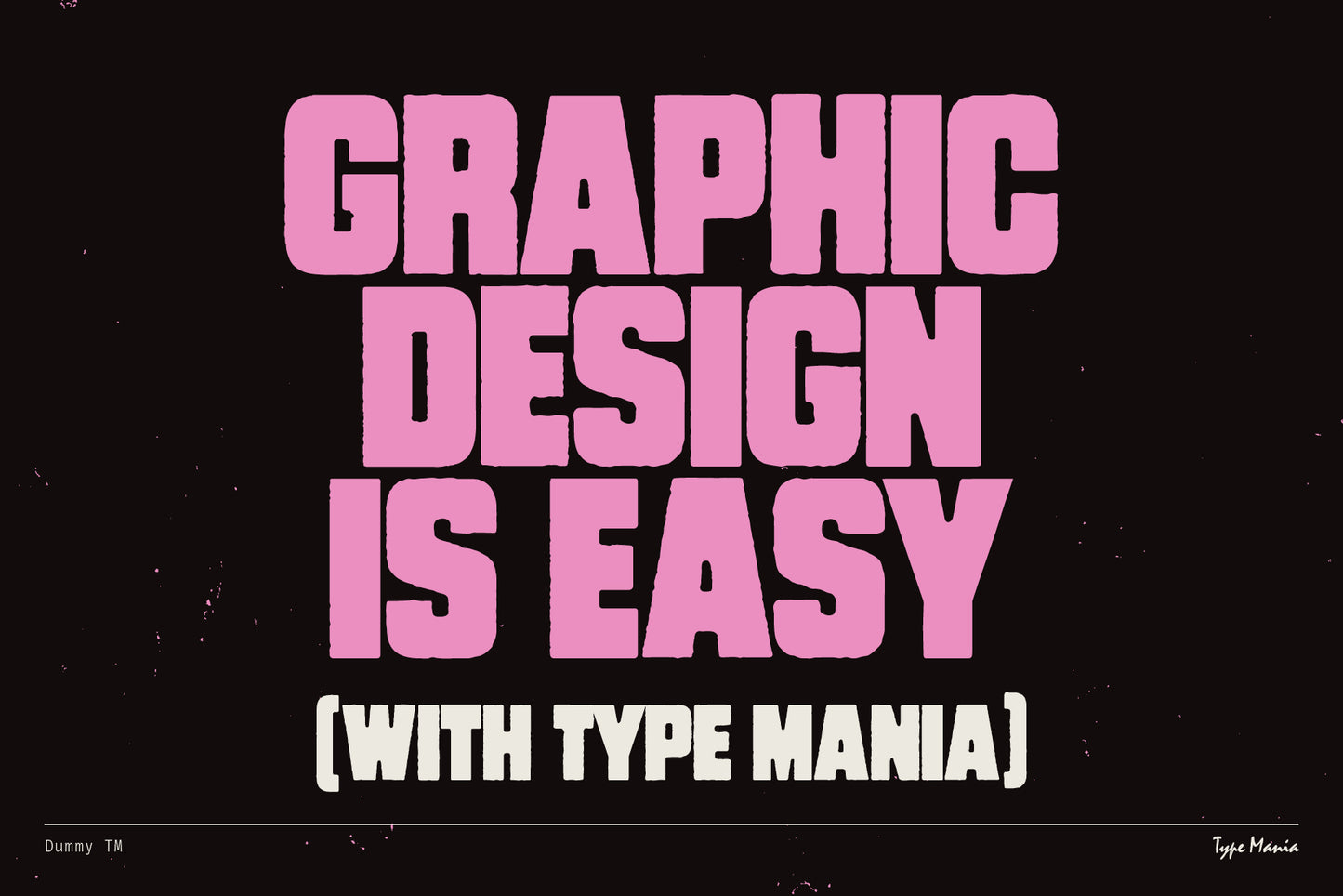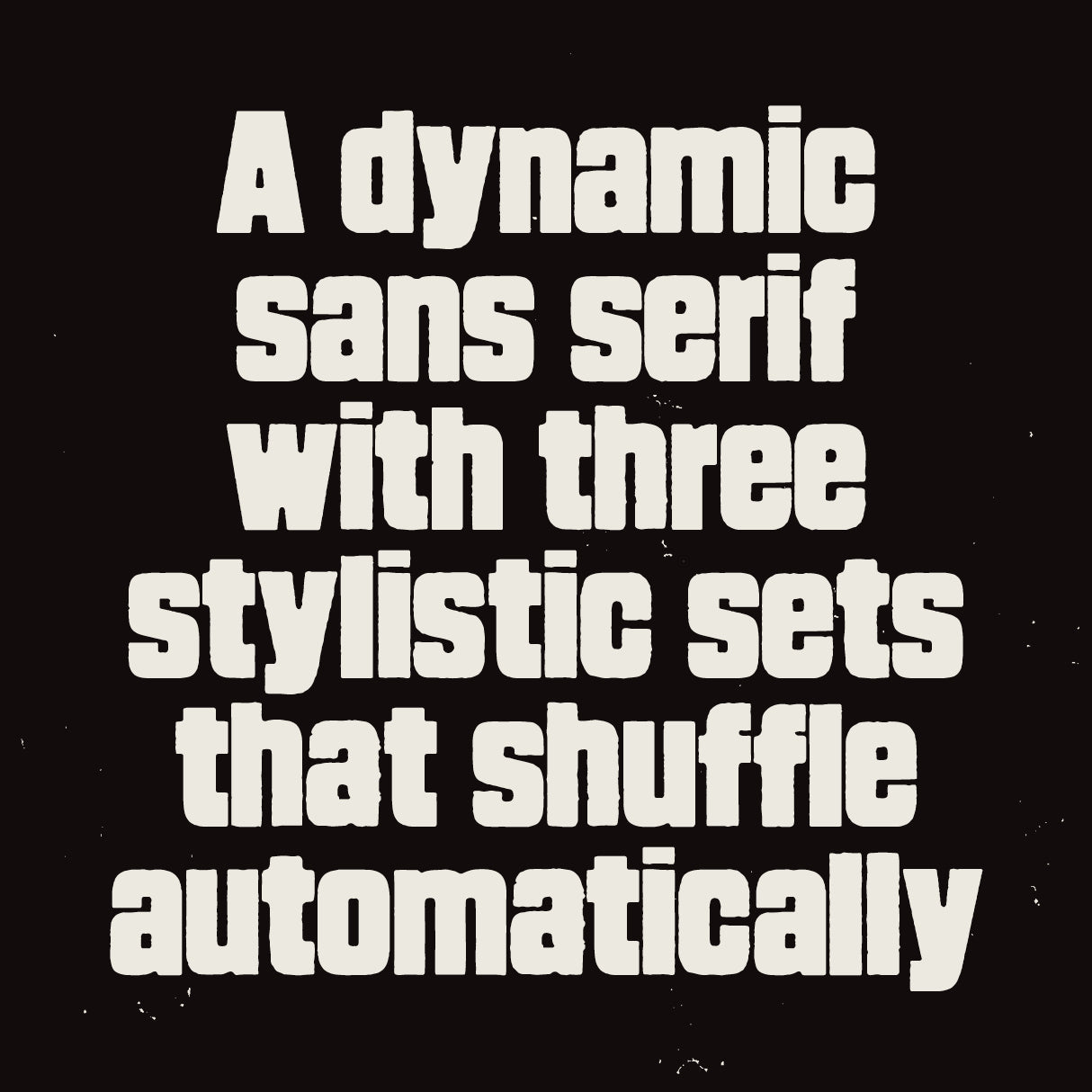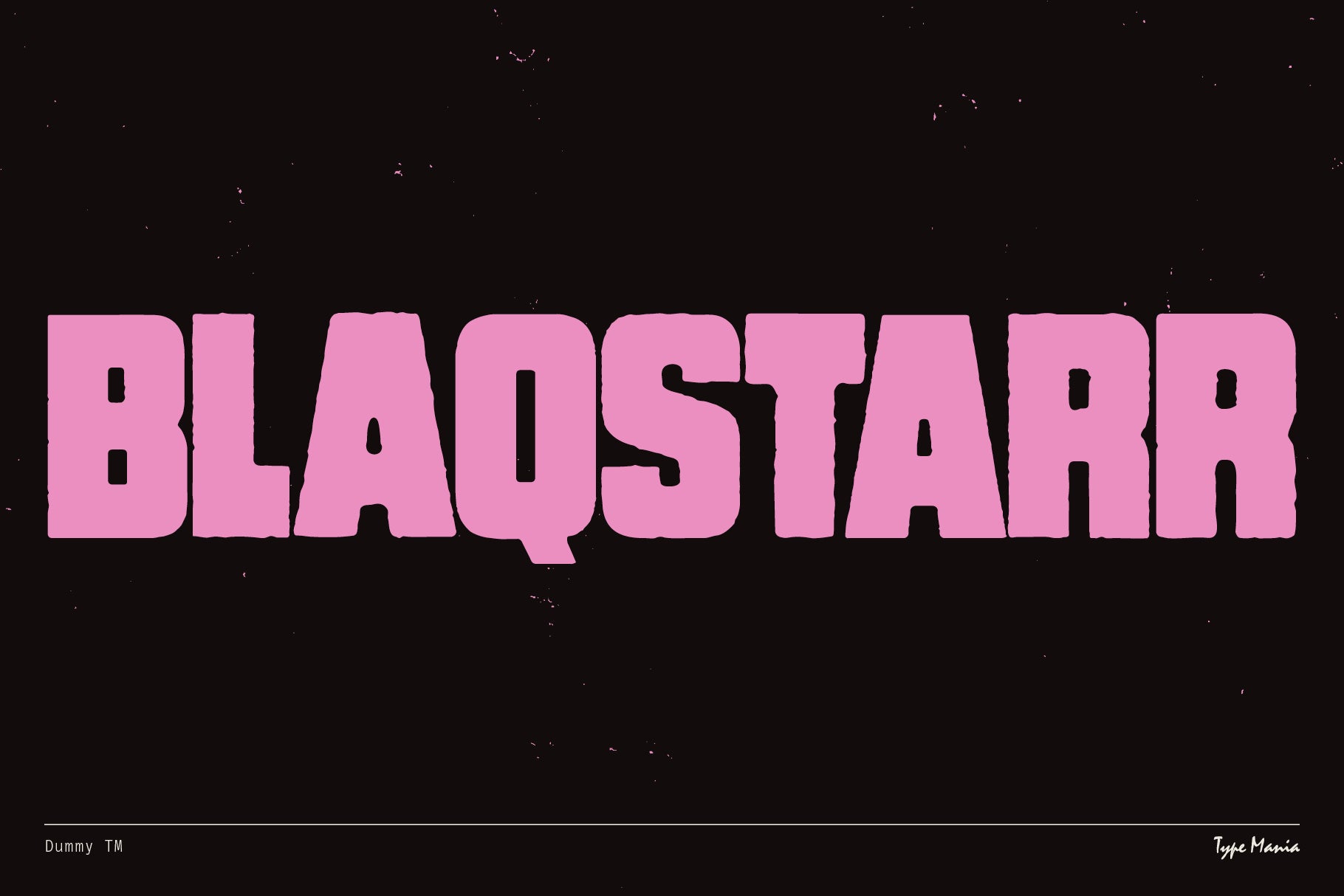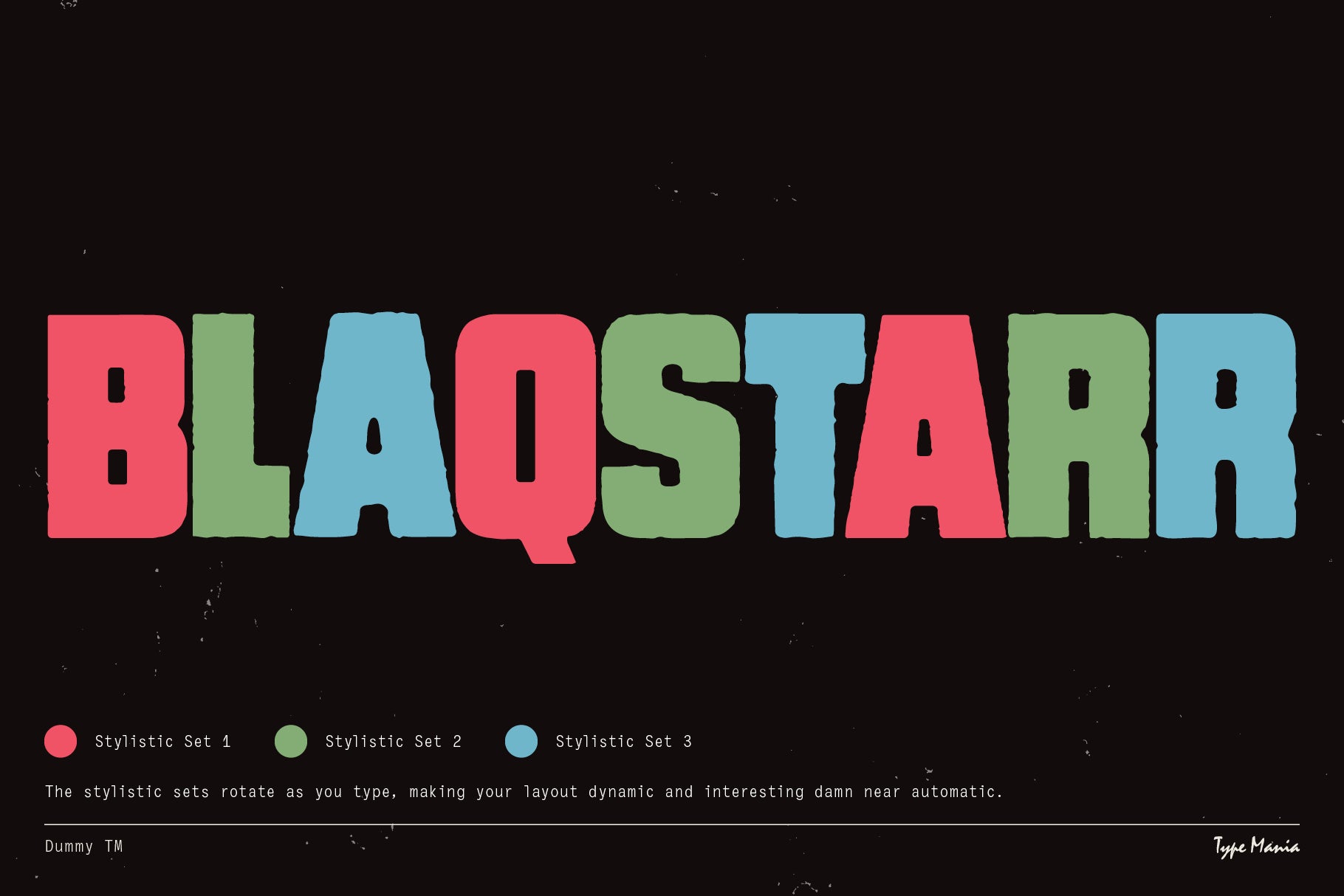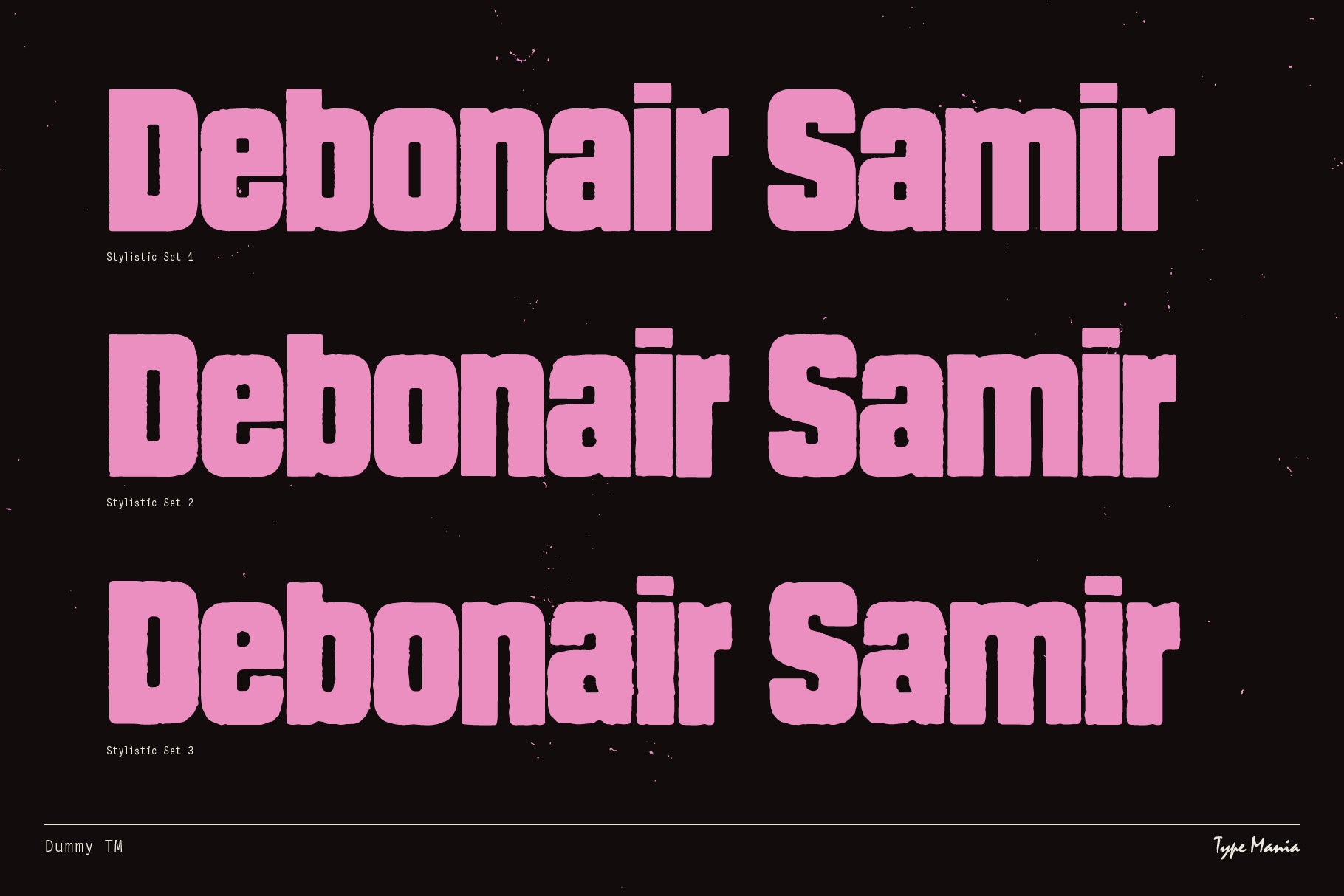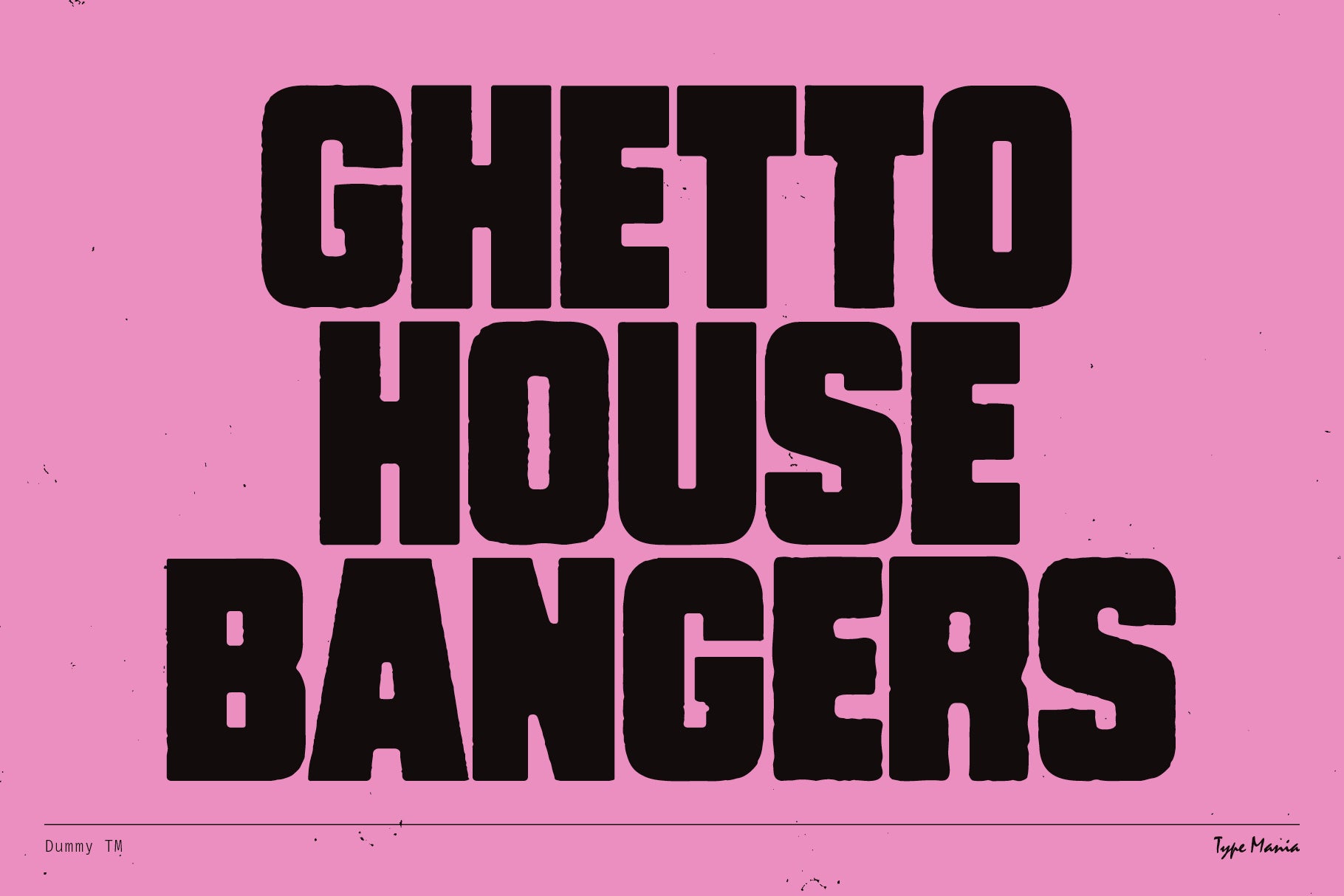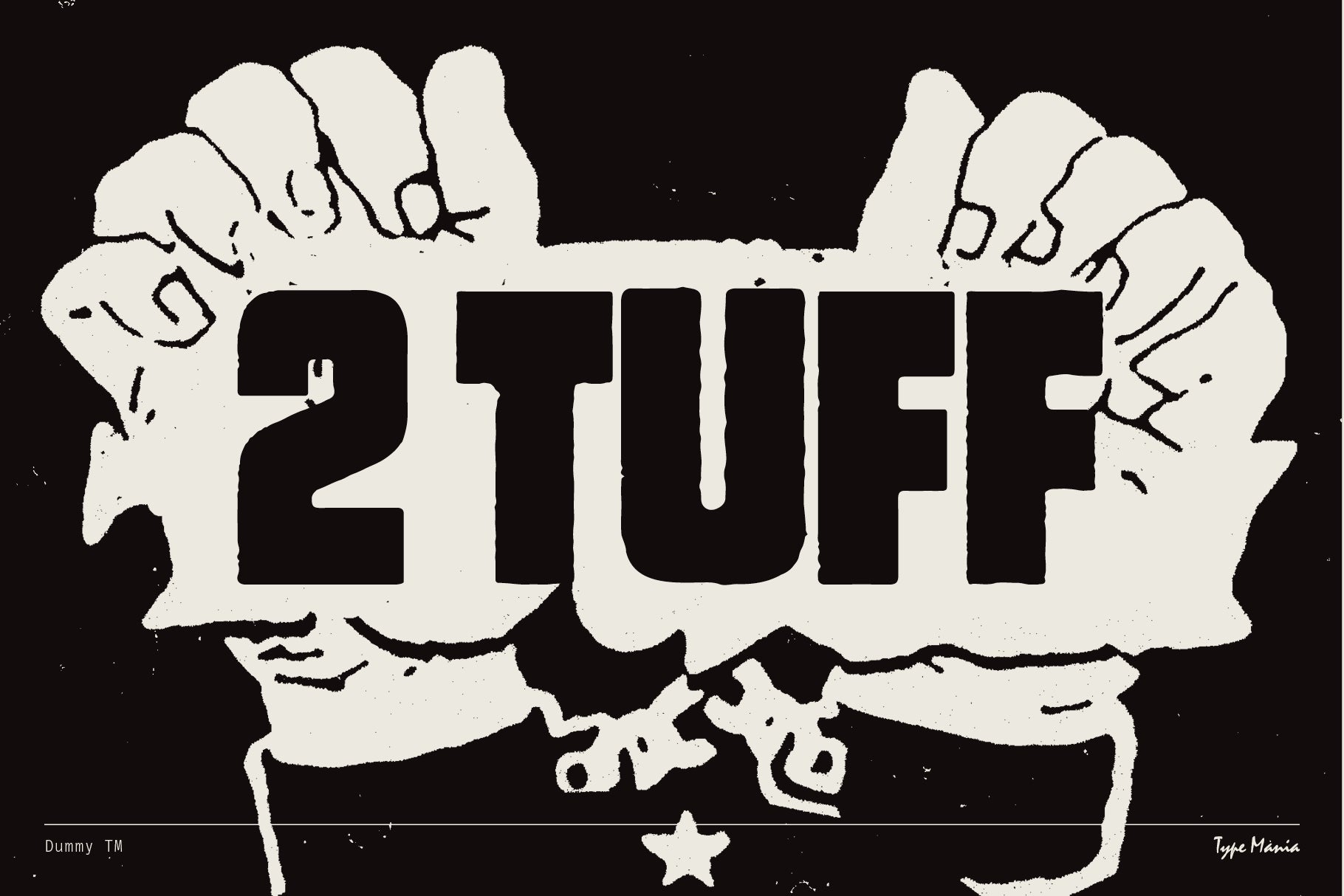
Dummy TM
Dummy TM is your go-to when it comes to heavy distressed type. The font includes 3 unique stylistic sets that rotate automatically as you type making the designer's job that much easier. Perfect for your street smart flyers, record covers, t-shirt prints, and whatever else you need. Enjoy, you big dummy! www.tinyurl.com/58bubcet
- 3 stylistic sets
- The font is programmed to automatically shift between the stylistic sets